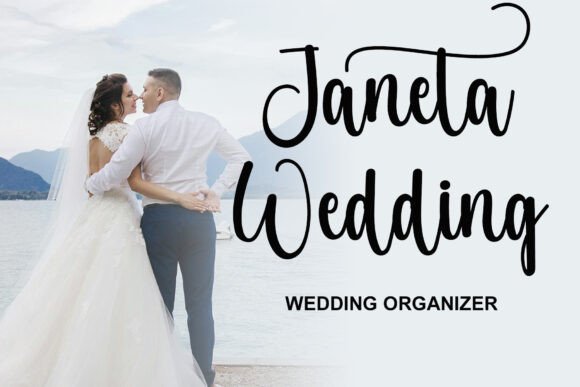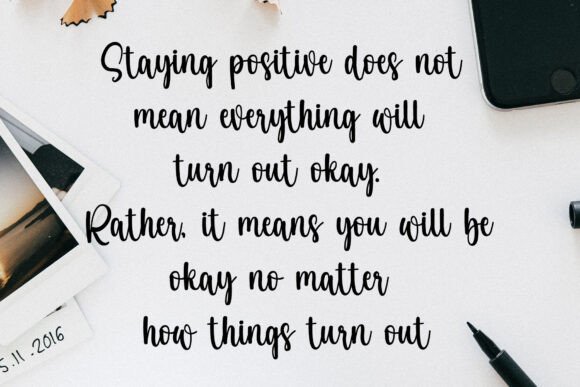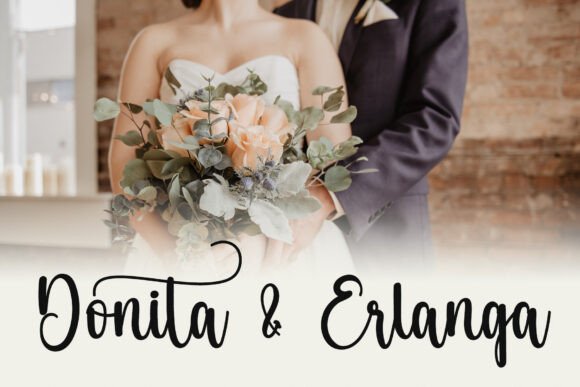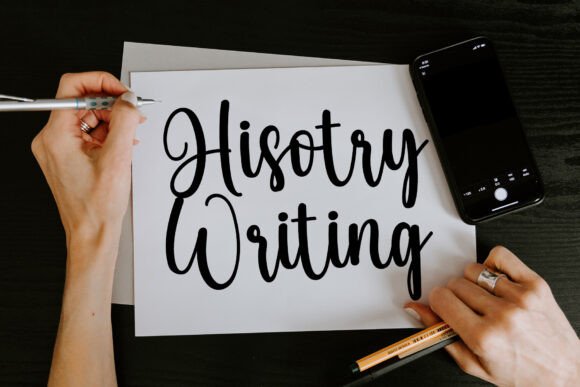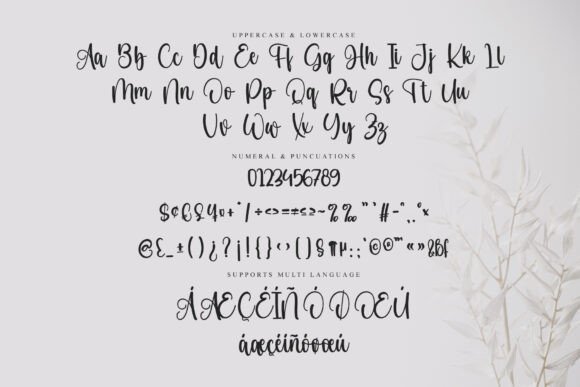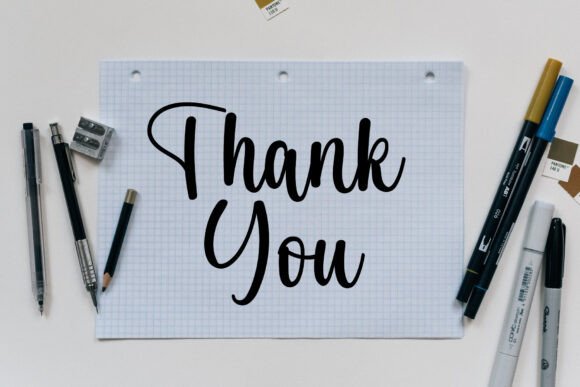
Education Font: Elevate Your Designs with a Touch of Timeless Elegance
Are you a designer or crafter looking for a font that exudes sophistication and style? Look no further than Education Font, a stunning handwritten font that brings a contemporary atmosphere and impeccable form to your projects. Inspired by timeless classic calligraphy, Education Font is the perfect choice for those seeking to add a touch of elegance to their designs.
The Inspiration Behind Education Font
Education Font draws inspiration from the world of classic calligraphy, where the art of beautiful handwriting has been perfected over centuries. The font’s creator aimed to capture the essence of this timeless art form and infuse it with a modern twist, making it suitable for a wide range of design applications. The result is a font that is both balanced and varied, with a unique character that sets it apart from more traditional fonts.
Key Features of Education Font
So, what makes Education Font so special? Here are just a few of its key features:
- Contemporary atmosphere: Education Font boasts a fresh and modern aesthetic that is perfect for designers looking to create contemporary designs.
- Impeccable form: The font’s precise and elegant letterforms ensure that your text is always legible and visually appealing.
- Balanced and varied: Education Font features a range of characters and ligatures that provide a natural, organic feel to your text.
- Handwritten charm: The font’s handwritten nature adds a touch of personality and warmth to your designs.
Perfect for a Range of Design Applications
Education Font is an incredibly versatile font that can be used in a variety of design contexts. Here are just a few ideas to get you started:
- Branding and logos: Use Education Font to create a sophisticated and memorable brand identity.
- Wedding and event invitations: Add a touch of elegance to your wedding or event invitations with Education Font.
- Packaging and product design: Use Education Font to create eye-catching packaging and product designs that stand out on store shelves.
- Stationery and greeting cards: Add a personal touch to your stationery and greeting cards with Education Font.
Tips for Using Education Font Effectively
To get the most out of Education Font, here are a few tips to keep in mind:
- Use it sparingly: Education Font is a statement font, so use it sparingly to add emphasis and create visual interest.
- Pair it with complementary fonts: Combine Education Font with complementary fonts to create a visually appealing contrast.
- Experiment with colors and textures: Don’t be afraid to experiment with different colors and textures to add depth and interest to your designs.
Education Font is a stunning handwritten font that brings a touch of timeless elegance to your designs. With its contemporary atmosphere, impeccable form, and balanced character, it’s the perfect choice for designers and crafters looking to create sophisticated and stylish designs. Whether you’re working on a branding project, wedding invitation, or packaging design, Education Font is sure to elevate your work to the next level.